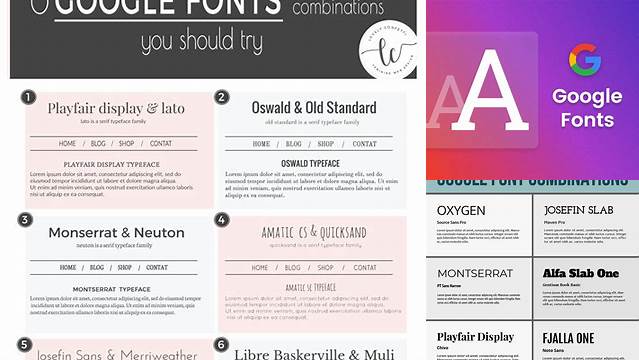
Best Google Fonts: Combinations For Stunning Designs
Choosing the right fonts is like picking the perfect outfit β it can make or break your design. And with the vast library of Google Fonts at our fingertips, the possibilities are endless! But letβs be real, sometimes having too many options can feel overwhelming, right? That's why we're here to guide you through some fantastic Google Font combinations that will help you create visually stunning and effective designs. Whether you're working on a website, a presentation, or even just a cool poster, these pairings will give your projects that extra oomph.
Why Font Pairing Matters
Before we dive into specific font combinations, let's talk about why font pairing is so crucial. Think of fonts as the voice of your design. They convey personality, tone, and even emotion. When you pair fonts well, you create a visual harmony that makes your content more engaging and easier to read. A good font pairing can establish a clear visual hierarchy, guiding the reader's eye through the page and highlighting important information. On the flip side, a poor font pairing can lead to a cluttered, confusing, and even off-putting design. Imagine trying to listen to two people talking at the same time β it's chaotic, right? The same goes for fonts! You want them to complement each other, not compete. So, mastering the art of font pairing is essential for any designer or anyone who wants their work to look polished and professional. The right font pairing ensures your message is not only seen but also felt. It sets the mood, enhances readability, and reinforces your brand's identity. Ultimately, it's about creating a cohesive and visually appealing experience for your audience.
The Psychology of Fonts
Did you know that fonts have personalities? Seriously! Some fonts feel classic and elegant, while others are modern and edgy. Understanding the psychology behind fonts can help you choose pairings that align with your message and brand. For instance, serif fonts (those with the little feet) often evoke feelings of tradition, authority, and sophistication. Think Times New Roman or Georgia β they're like the well-respected elders of the font world. On the other hand, sans-serif fonts (those without the feet) tend to feel cleaner, more contemporary, and approachable. Arial and Helvetica are prime examples β they're the cool, modern fonts that are always in style. Then you have script fonts, which mimic handwriting and add a touch of personality and flair. But be careful with these β they're best used sparingly for headings or accents, as they can be difficult to read in large blocks of text. And let's not forget display fonts β these are the attention-grabbers, the bold and unique fonts that are perfect for headlines and logos. Pairing a display font with a simpler body font can create a striking contrast. By understanding these font personalities, you can create visual narratives that resonate with your audience. It's about choosing fonts that not only look good together but also communicate the right message.
Understanding Font Categories
To become a font pairing pro, it's helpful to understand the different categories of fonts. Think of it as knowing the players on a team β each has their role to play! The main categories are serif, sans-serif, script, and display, as we touched on earlier. Serif fonts, with their classic serifs, are like the reliable veterans β they're great for body text and exude a sense of formality. Sans-serif fonts, the modern minimalist cousins, are excellent for headings and body text in digital formats. Script fonts, the elegant calligraphers, add a touch of personality but should be used sparingly. Display fonts, the bold and expressive team members, are perfect for making a statement in headlines and logos. Knowing these categories helps you create contrast and hierarchy in your designs. A classic pairing is a serif for body text and a sans-serif for headings β this creates a clear visual distinction while maintaining readability. You can also experiment with pairing different styles within the same category, like a bold serif for headings and a lighter serif for body text. The key is to find fonts that complement each other, rather than compete. It's like creating a harmonious team where each font's strengths shine through.
Top Google Font Combinations for 2024
Alright, let's get to the good stuff β the font pairings that will make your designs sing! These Google Font combinations are tried, tested, and ready to elevate your projects in 2024. We've curated a list that covers various styles and moods, so you're sure to find something that suits your needs. Remember, the best font pairing is one that enhances your content and resonates with your audience, so feel free to experiment and put your own spin on these suggestions.
1. Montserrat & Merriweather
Montserrat and Merriweather is a classic combination that exudes modernity and readability. Montserrat, a clean and geometric sans-serif, works beautifully as a heading font, lending a contemporary feel to your titles. Merriweather, a serif font designed specifically for on-screen reading, provides excellent legibility for body text. This pairing is versatile and suitable for a wide range of projects, from websites and blogs to presentations and reports. The clean lines of Montserrat complement the slightly traditional yet modern feel of Merriweather, creating a balanced and professional aesthetic. Imagine using this combination for a sleek tech blog or a sophisticated online magazine β it just works! The contrast between the sans-serif and serif fonts creates a clear visual hierarchy, making it easy for readers to navigate the content. Moreover, both fonts are highly readable at various sizes, ensuring a seamless user experience across different devices. If you're looking for a reliable and stylish font pairing that won't let you down, Montserrat and Merriweather is a fantastic choice. It's a go-to combination for many designers, and for good reason β it's timeless and effective.
2. Open Sans & Roboto
Open Sans and Roboto is a match made in digital heaven. Both are sans-serif fonts, but they bring distinct qualities to the table. Open Sans is known for its neutrality and readability, making it an excellent choice for body text. Roboto, with its geometric structure and friendly curves, works wonderfully for headings and subheadings. This pairing is incredibly versatile and works well for websites, apps, and user interfaces. The clean, uncluttered look of Open Sans ensures your content is easily digestible, while Roboto adds a touch of personality and modernity. Think of this combination as the perfect blend of functionality and style. It's like the dynamic duo of the font world! Imagine using this for a clean, modern website or a user-friendly mobile app β the combination is both approachable and professional. The subtle differences in the fonts' character shapes create visual interest without sacrificing readability. Plus, both Open Sans and Roboto are widely supported and render beautifully across different platforms and devices. So, if you're aiming for a contemporary and user-centric design, Open Sans and Roboto is a winning combination.
3. Raleway & Lato
Raleway and Lato is a pairing that oozes elegance and sophistication. Raleway, a sleek and stylish sans-serif, is perfect for headings and titles, bringing a touch of modern flair to your designs. Lato, a clean and readable sans-serif, is an excellent choice for body text, ensuring a comfortable reading experience. This combination is ideal for websites, portfolios, and branding materials where a refined and contemporary look is desired. The thin, elegant strokes of Raleway create a sense of sophistication, while the rounded terminals of Lato add a touch of warmth and approachability. This pairing is like the stylish friend who always knows what to wear β it just looks good! Imagine using this for a high-end fashion website or a creative agency's portfolio β it exudes professionalism and creativity. The contrast between the slightly bolder Raleway and the more subtle Lato creates a visual hierarchy that guides the reader's eye. Furthermore, both fonts are incredibly versatile and can be used in various design contexts. If you're looking to create a design that's both modern and elegant, Raleway and Lato is a stellar choice.
4. Playfair Display & Montserrat
Playfair Display and Montserrat is a pairing that combines classic elegance with modern simplicity. Playfair Display, a serif font with a touch of drama, is perfect for headings and titles, adding a touch of sophistication and flair. Montserrat, a clean and geometric sans-serif, works beautifully for body text, providing excellent readability. This combination is well-suited for websites, magazines, and branding projects where a balance of tradition and modernity is desired. The high contrast and elegant serifs of Playfair Display make a bold statement, while the clean lines of Montserrat ensure the content remains easily readable. Think of this pairing as the perfect blend of old-world charm and contemporary design. Imagine using this for a luxury brand's website or a sophisticated lifestyle magazine β it exudes class and style. The contrast between the serif and sans-serif fonts creates a clear visual hierarchy, making it easy for readers to navigate the content. Plus, both fonts are highly versatile and can be used in a variety of design applications. If you're looking to create a design that's both elegant and modern, Playfair Display and Montserrat is an excellent choice.
5. Oswald & Lora
Oswald and Lora is a font pairing that's both strong and sophisticated. Oswald, a condensed sans-serif font, is perfect for headings and titles, lending a sense of boldness and modernity. Lora, a well-balanced serif font with roots in calligraphy, provides excellent readability for body text. This combination is ideal for blogs, news websites, and online publications where a clear and engaging reading experience is essential. The strong, assertive character of Oswald grabs attention, while the elegant and legible Lora ensures the content is easily digestible. Think of this pairing as the power couple of the font world β they complement each other perfectly! Imagine using this for a news website or a serious blog β it conveys authority and credibility. The contrast between the sans-serif and serif fonts creates a clear visual hierarchy, guiding the reader's eye through the page. Moreover, both fonts are highly versatile and can be used in various design contexts. If you're looking for a font pairing that's both bold and refined, Oswald and Lora is a fantastic choice.
So there you have it β a guide to nice Google Font combinations that will help you create stunning designs in 2024 and beyond! Remember, font pairing is an art, and like any art form, it takes practice and experimentation to master. Don't be afraid to try new combinations, explore different styles, and trust your creative instincts. By understanding the principles of font pairing and leveraging the vast library of Google Fonts, you can transform your designs from ordinary to extraordinary. Whether you're a seasoned designer or just starting out, the right font pairing can make all the difference. So go ahead, experiment, and create something beautiful! We hope these font pairings inspire you to take your designs to the next level. Happy designing, guys!